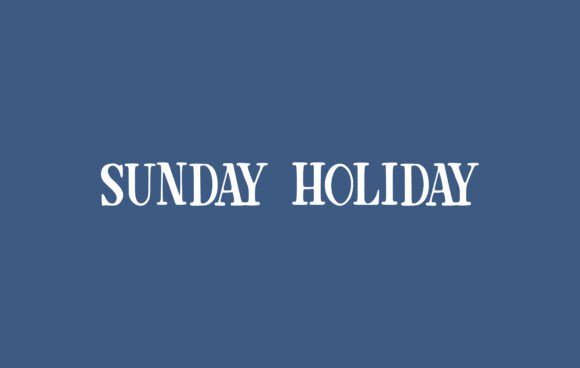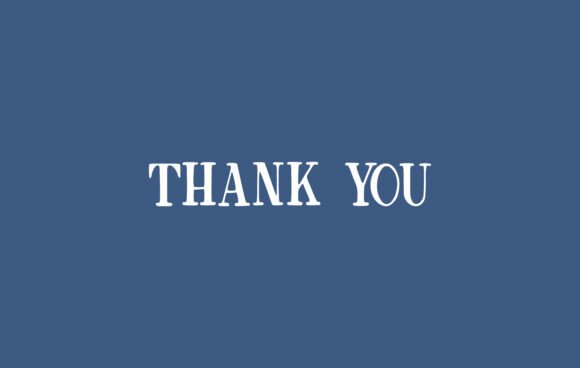
The Emily Font: A Romantic Touch for Your Creative Projects
I’ll never forget the time I was working on a wedding invitation design project, and I just couldn’t seem to find the perfect font. My client wanted something elegant, yet playful, and I was determined to deliver. That’s when I stumbled upon the Emily font, and it instantly became my go-to. With its authentic handwritten style and romantic touch, it was exactly what I needed to take my design to the next level.
A Personal Review of Emily Font
So, what makes Emily font so special? Here are a few things I love about it:
- ✨ Legibility: Emily font is incredibly easy to read, making it perfect for both title and body text.
- ✅ Versatility: This font is suitable for a wide range of design projects, from magazine headlines to social media graphics, branding, wedding invitations, and more.
- 💕 Romantic touch: The handwritten style of Emily font adds a touch of warmth and personality to any design.
Of course, no font is perfect, and Emily font has a few small quirks:
- 🤔 Limited availability of certain characters: Some users have reported that certain characters, such as ligatures, are not readily available.
- ⚠️ Not suitable for very small text sizes: Emily font can become a bit blurry when used at very small text sizes, so it’s best to use it at larger sizes.
The Story Behind Emily Font
Emily font was designed with the intention of creating a beautiful, handwritten font that captures the essence of romance and elegance. The designer aimed to create a font that’s both legible and stylish, making it perfect for a wide range of creative projects. While the exact story behind Emily font may be unknown, its charm and character have made it a favorite among designers and crafters.
| What is Emily font? | Emily font is an authentic handwritten font with a romantic touch, designed to be a true favorite among designers and crafters. |
| Can I use Emily font for my branding design? | Absolutely! Emily font is perfect for branding designs that require a touch of elegance and sophistication. |